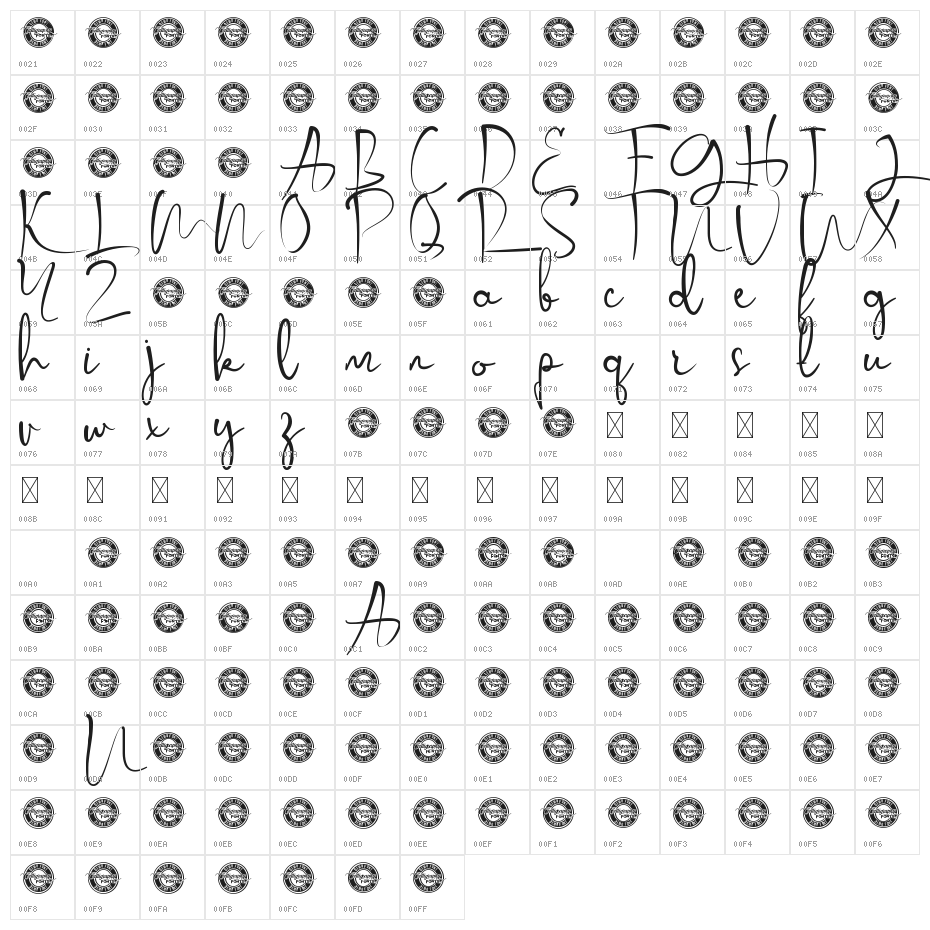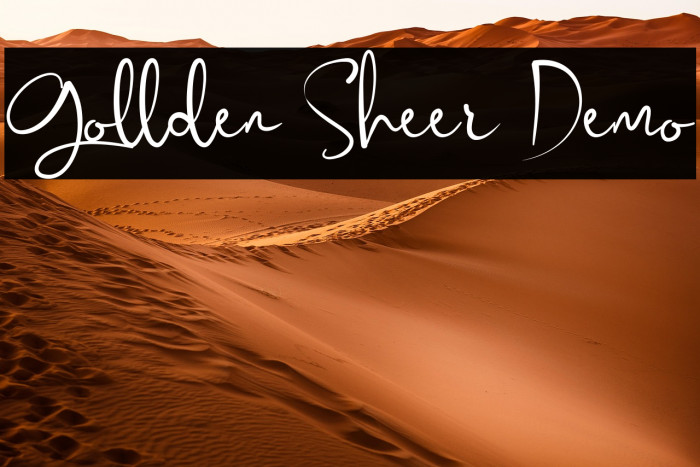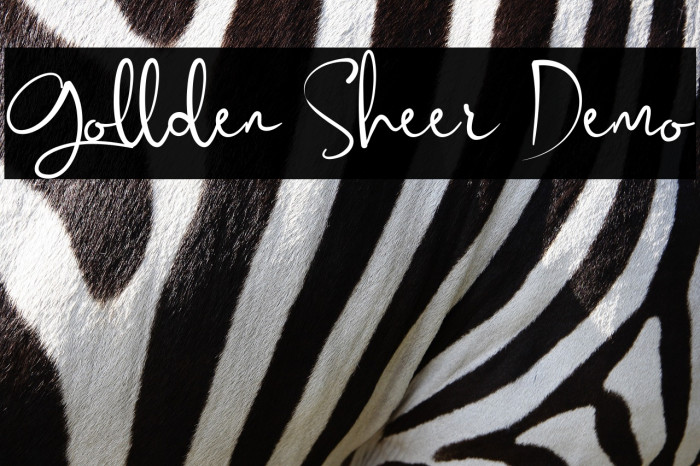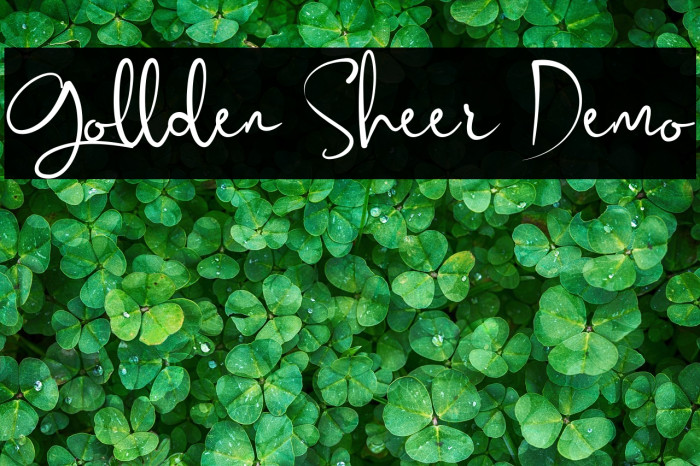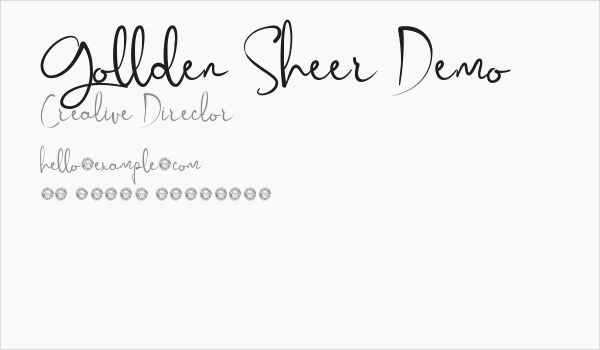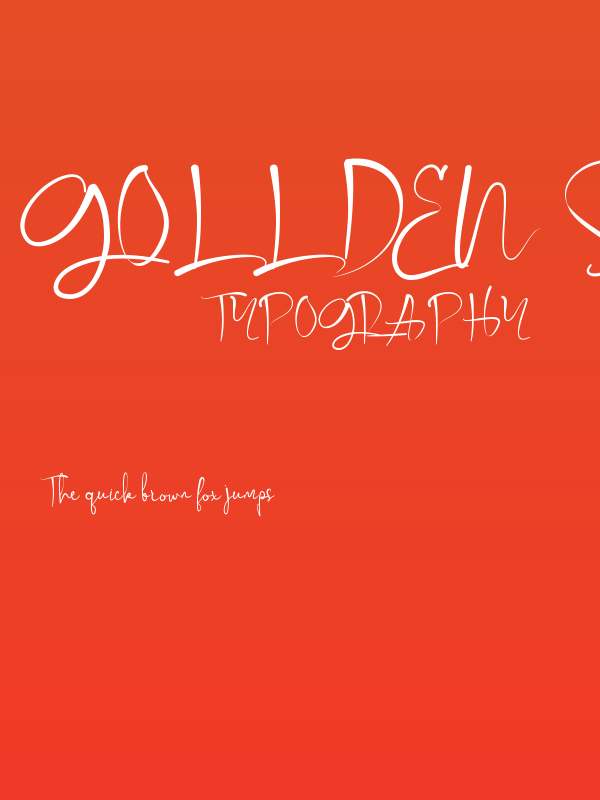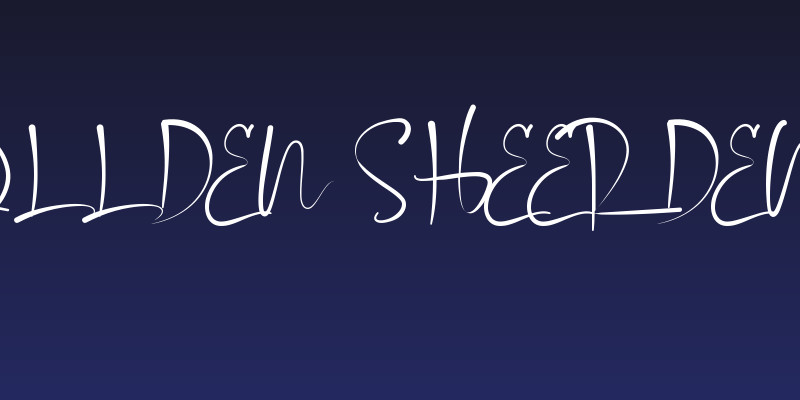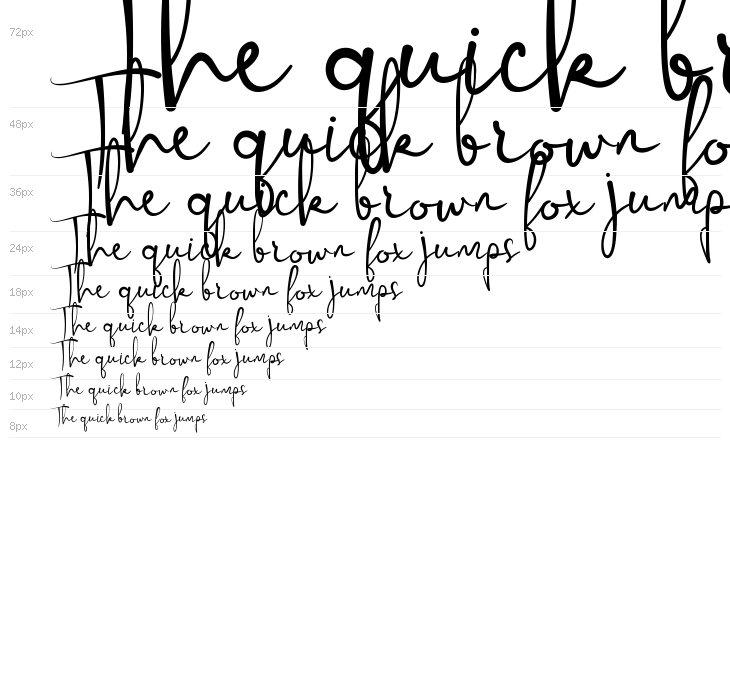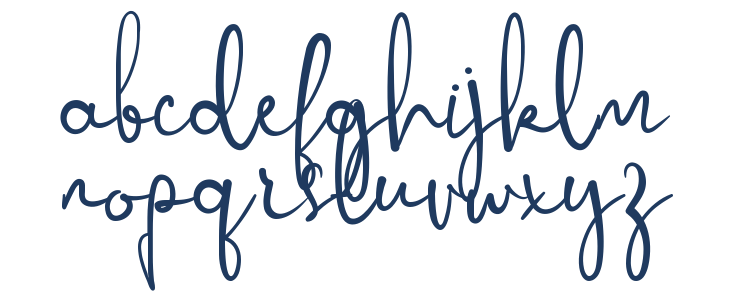
Gollden Sheer Demo Font
Gollden Sheer Demo Description
This font features a modern, handwritten style with a flowing, cursive appearance. The uppercase letters are tall and slender, with a slight slant that adds elegance and movement. The lowercase letters are more rounded and connected, creating a seamless and fluid look. The strokes vary in thickness, providing a dynamic contrast that enhances readability while maintaining an artistic flair. The overall design is sophisticated and stylish, making it suitable for creative and decorative projects. The font's unique character is further emphasized by its playful loops and swirls, which add a touch of whimsy and charm.
Use CaseLogos, Decorative text, Invitations
Proposed ProjectsIdeal for wedding invitations, greeting cards, branding, and logo design.